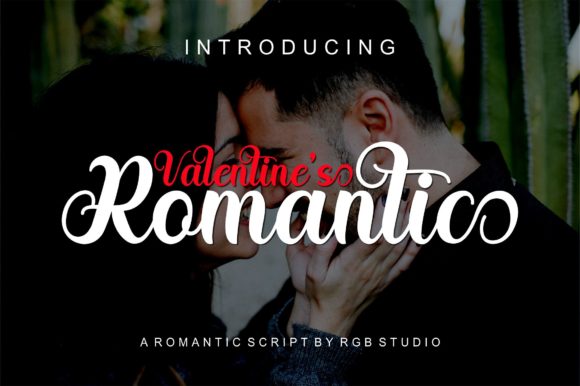
Introducing Valentines Romantic Font – A Journey of Enchantment and Elegance!
Step into a world of typographic wonder with Valentines Romantic, a meticulously crafted script font that is sure to captivate hearts and ignite imaginations. Designed to evoke a sense of timeless elegance, this font is meticulously balanced, radiating both sophistication and playfulness.
With its graceful curves and elegant swashes, Valentines Romantic effortlessly captures the essence of romance and enchantment. It’s the perfect choice for conveying emotions and creating designs that resonate with an audience. Whether it's a heartfelt Valentine's Day greeting, a whimsical invitation, or a captivating social media post, this font will add a touch of magic to your creations.
Valentines Romantic is also incredibly versatile, ensuring you’ll have the perfect tool for any project. From stunning logos and branding designs to eye-catching posters and headers, this font adapts flawlessly to any context. Its intricate details and charming personality are guaranteed to leave a lasting impression.
But Valentines Romantic isn't just about beauty – it’s also meticulously designed for ease of use. It's PUA encoded, granting you effortless access to all glyphs and swashes, enhancing your creative freedom. Whether you're a seasoned designer or just starting out, this font is an absolute joy to work with.
Why settle for ordinary when you can elevate your designs with the enchanting allure of Valentines Romantic? Embark on a journey of creativity and let your imagination soar. Download this font today and let its romantic aura captivate your audience.